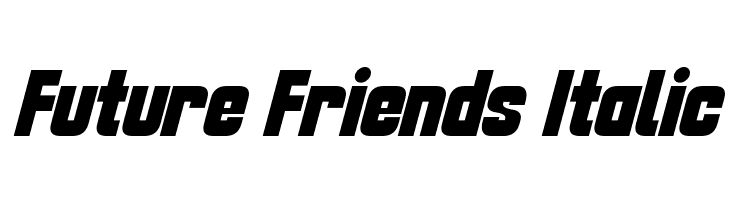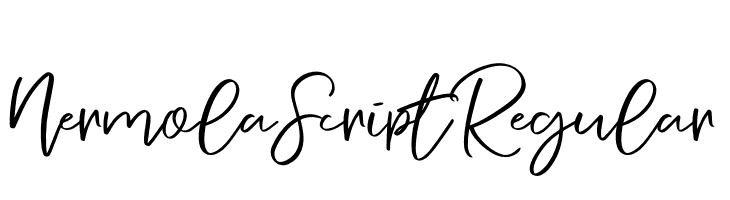
A dynamic, handwritten font with bold, sweeping strokes and a playful, artistic style.
( Fonts by Anastasija Fjodorova )
A playful and whimsical font with decorative swirls and loops.
( Fonts by www.blambot.com )
A bold, decorative font with a whimsical, hand-drawn style.
( Typia Nesia - www.myfonts.com/foundry/Typia_Nesia/ )
A bold, distressed font with a rugged, grunge style.
( Fonts by Hanoded )
A playful, bold font with rounded, bubbly characters and a whimsical style.
( Fonts by Graham Meade - GemFonts )
A modern, geometric font with consistent stroke widths and a clean design.
( Fonts by Pol Udomwittayanukul - webnaipol.atspace.com )
A sleek, modern italic font with geometric precision and clean lines.
A bold, distressed font with a cracked, glitch-like appearance.